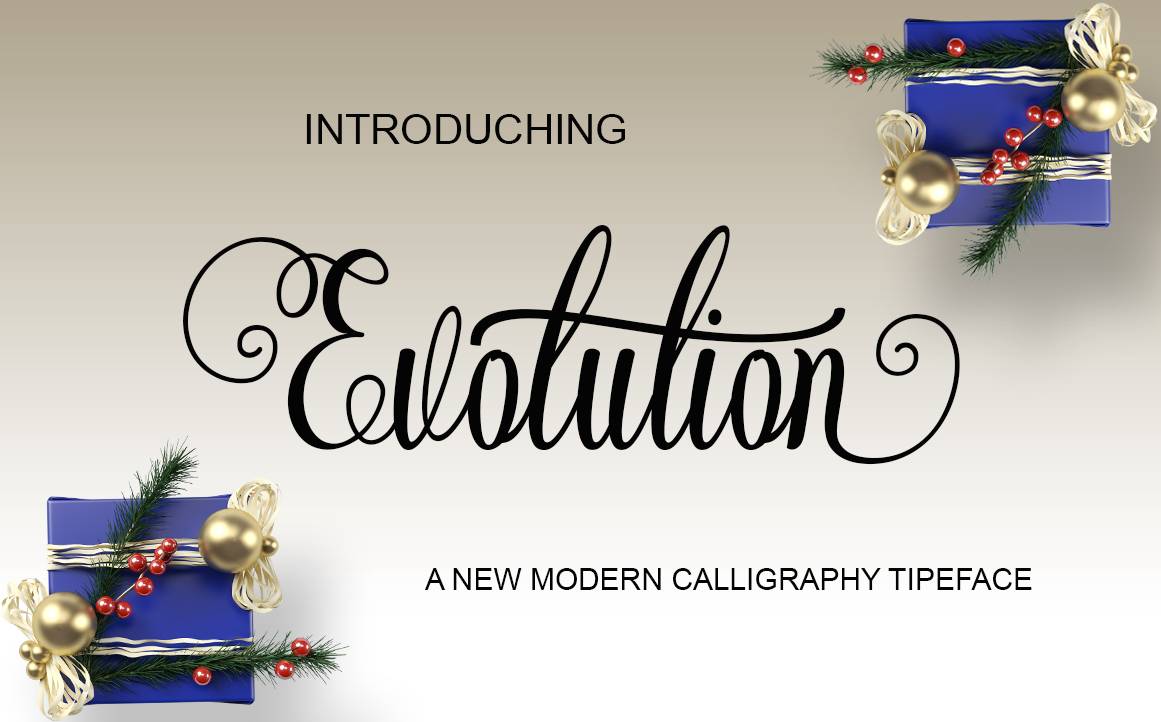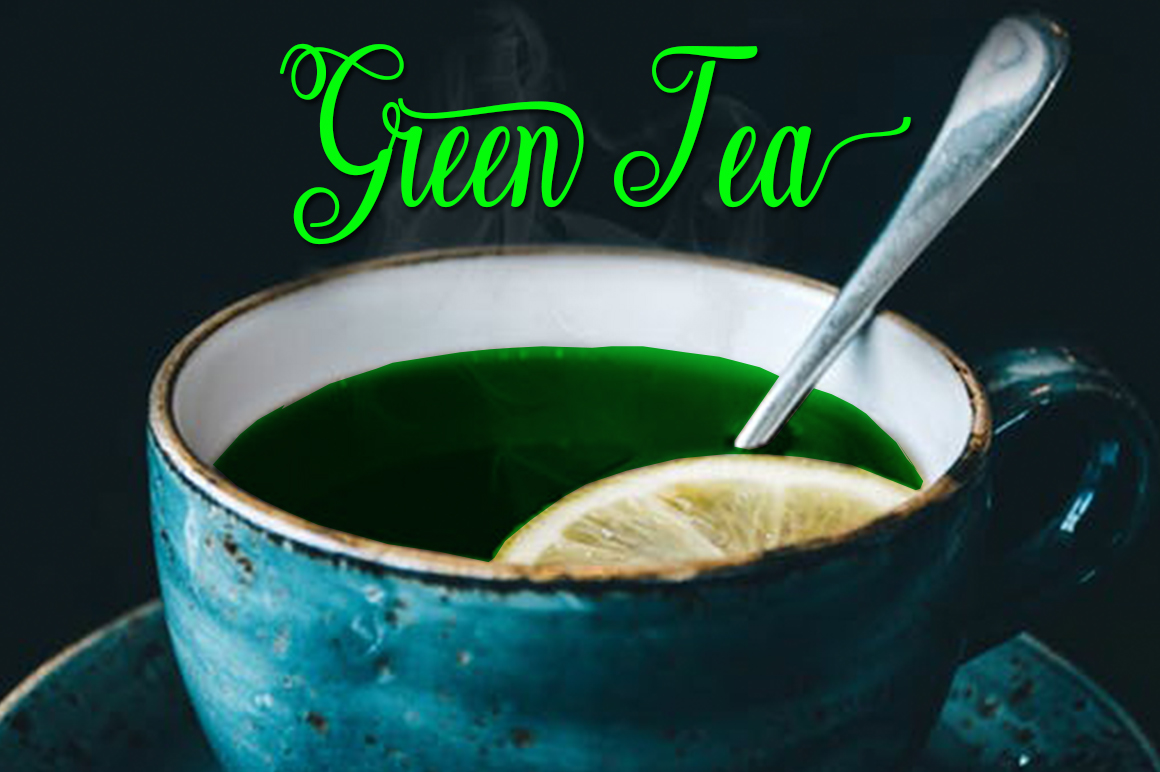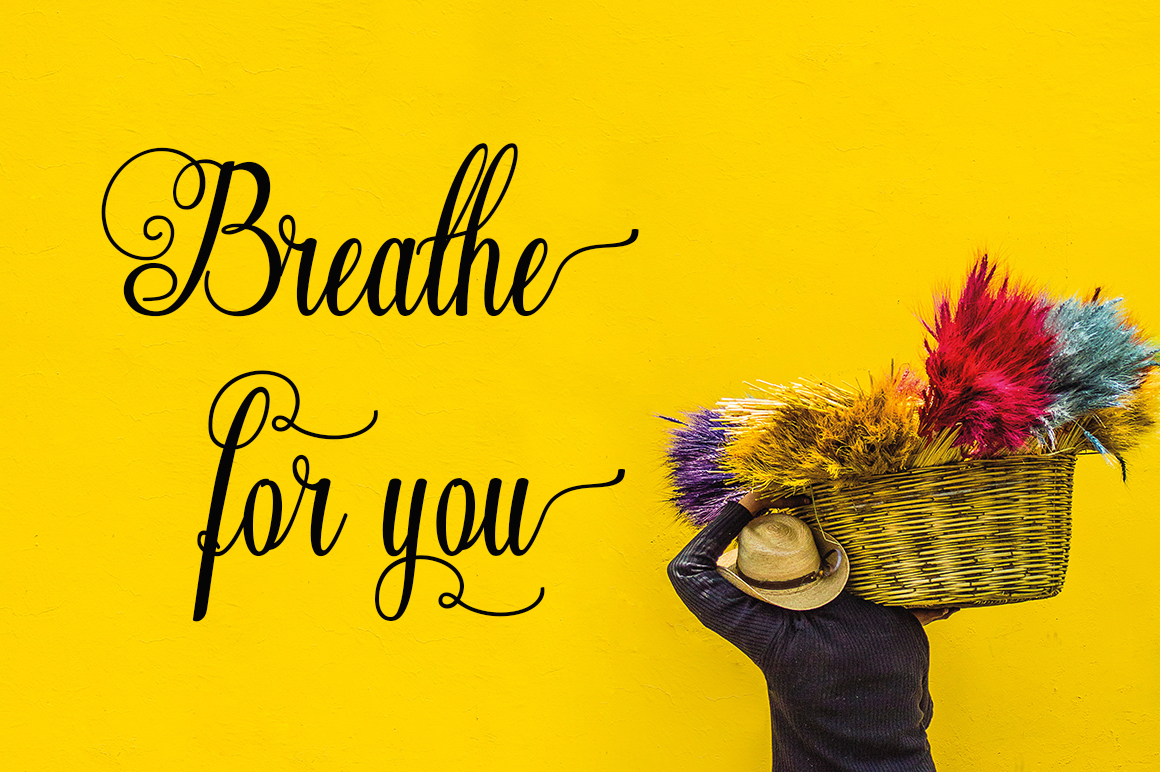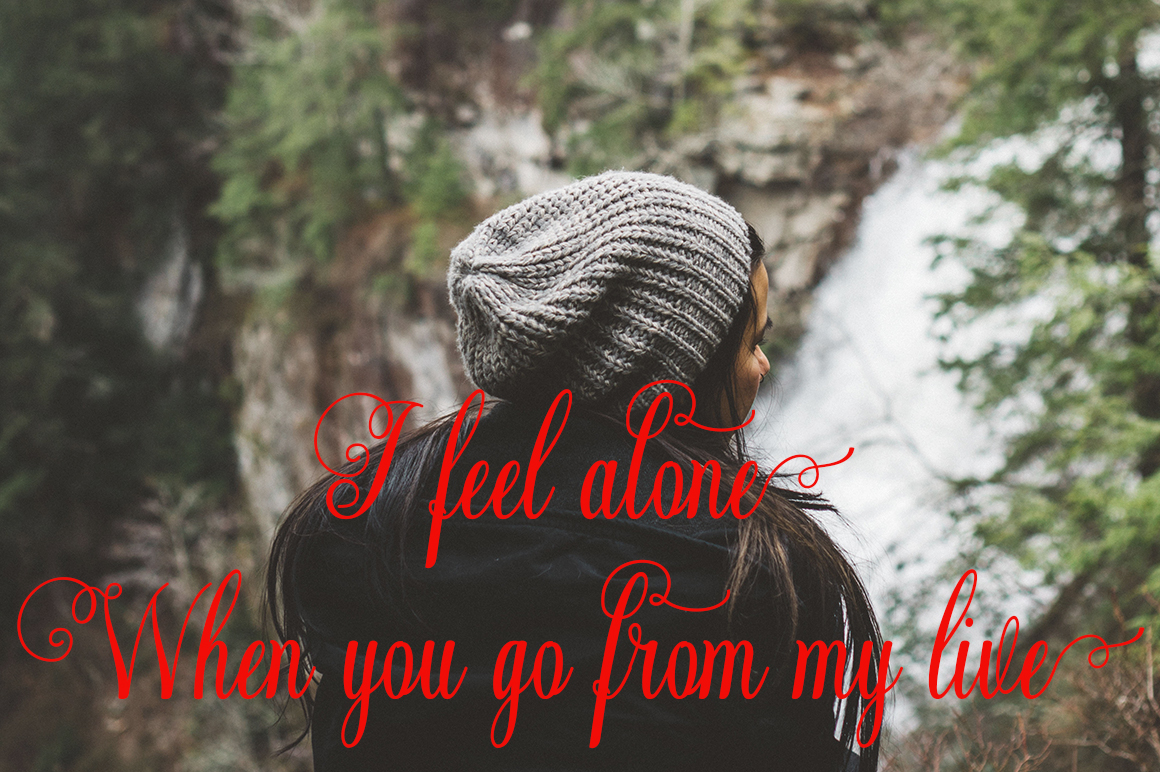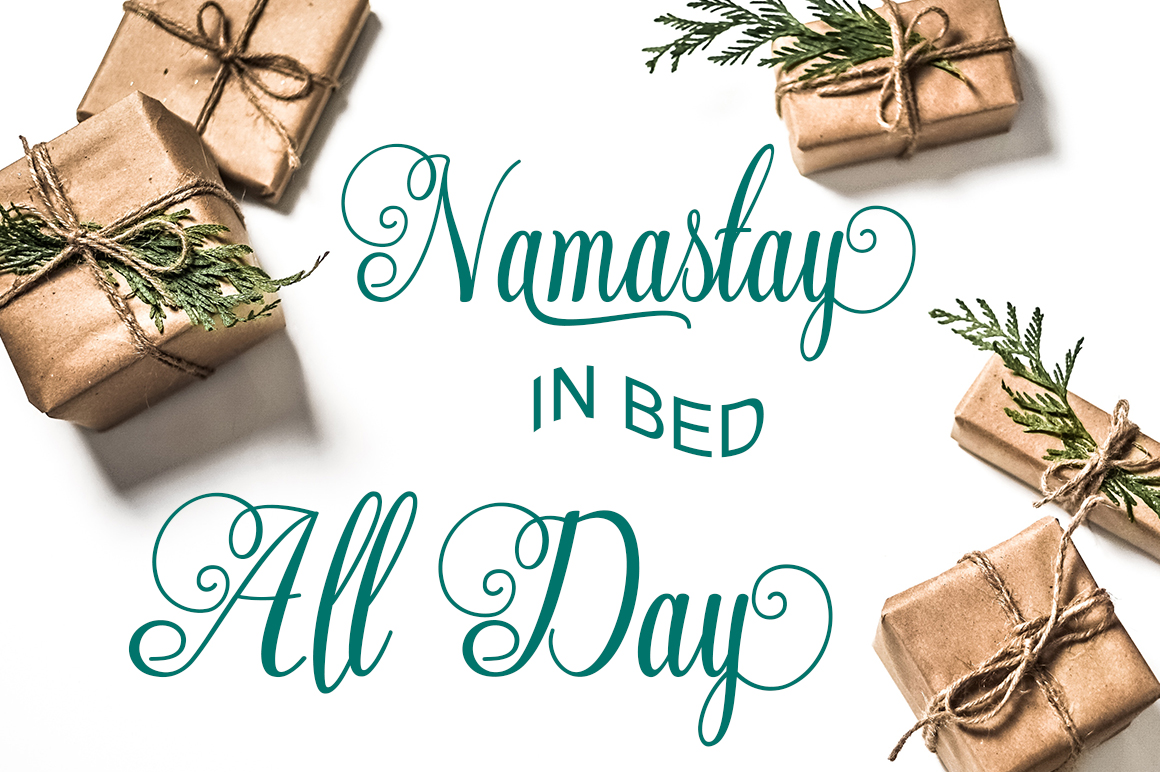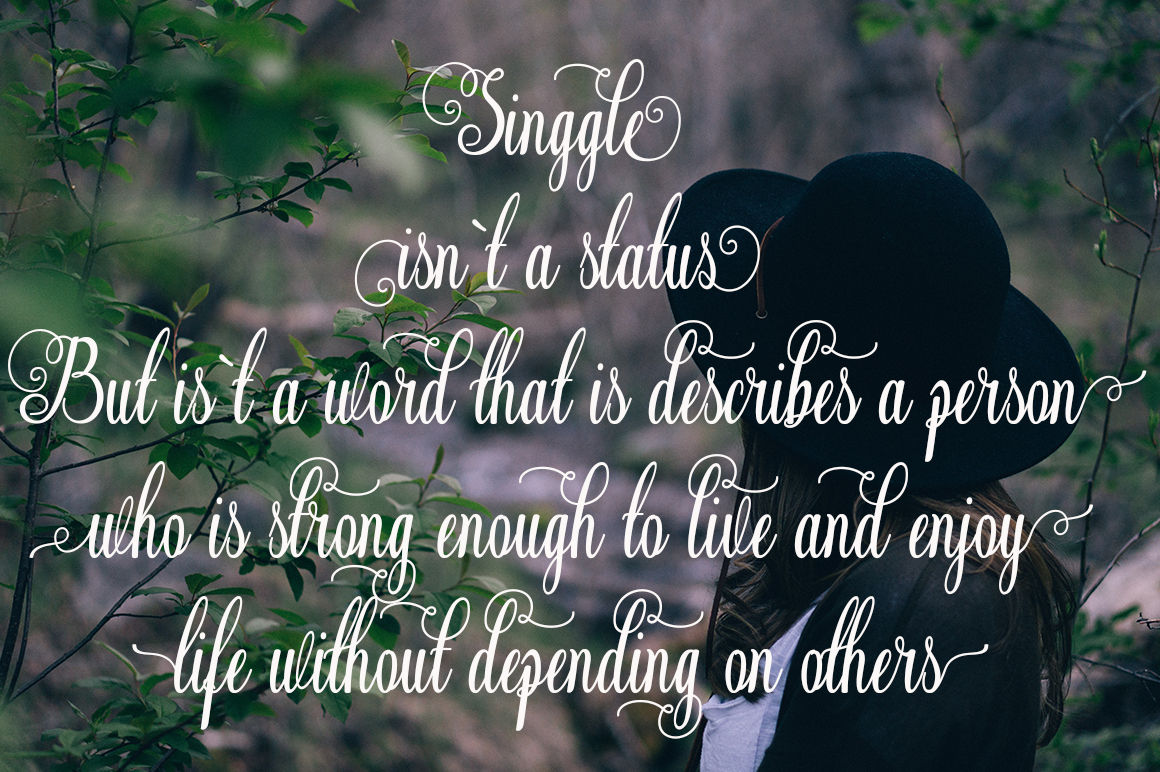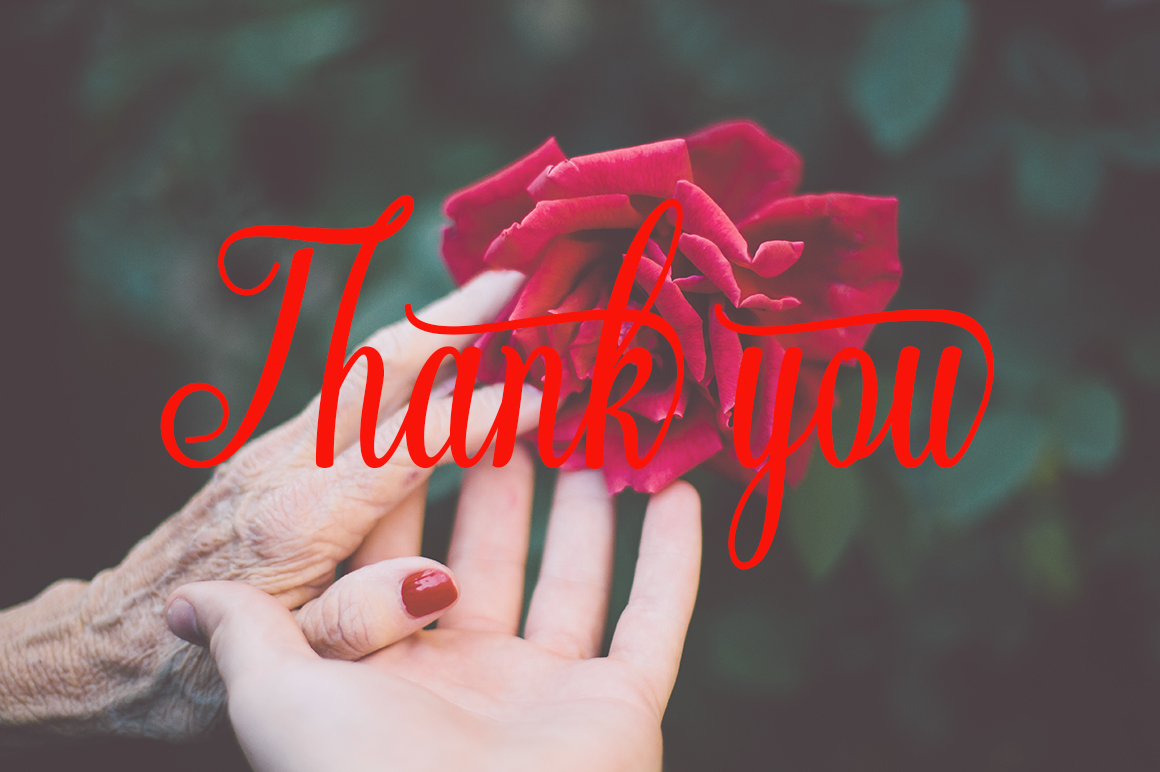
HomeScript FontsEvolution Font Script Fonts Evolution Font FacebookXPinterestWhatsApp Evolution Font Poster 2 Evolution Font Poster 3 Evolution Font Poster 4 Evolution Font Poster 5 Evolution Font Poster 6 Evolution Font Poster 7 About Evolution Font Evolution is a modern handwritten calligraphy font. Designed by hand, digitally perfected. DOWNLOAD ON CREATIVE FABRICAThis font is sold and delivered by Creative Fabrica. Font Canyon may earn a commission if you buy through this link. People also explored Heart Spangled Font Dinosaurus Roar Font Special Ramen Font Alicia Helyn Font Andest Font White Bella Canvas 3005 V Neck Mockup Beone Extra Light Font Lovely Font Whating Font 272 0 TagsEvolution Font Previous articleMeusaneut FontNext articleSayes Font LEAVE A REPLY Cancel reply Comment: Please enter your comment! Name:* Please enter your name here Email:* You have entered an incorrect email address! Please enter your email address here Website: Save my name, email, and website in this browser for the next time I comment. Personal Use Free Yesstea Personal Use Free Read more about this font Miracles Personal Use Free Read more about this font City Tour Personal Use Free Read more about this font Adelaide Personal Use Free Read more about this font BLOG Fonts That Capture the Spirit of New York City New York City is more than just a place—it’s an experience, a rhythm, a visual language... Best Fonts for T-Shirt Design – Top 2025 Picks Elegant Wedding Invitation Fonts – Handwritten & Script Fonts Best Fonts for YouTube Videos: Make Your Thumbnails Stand Out